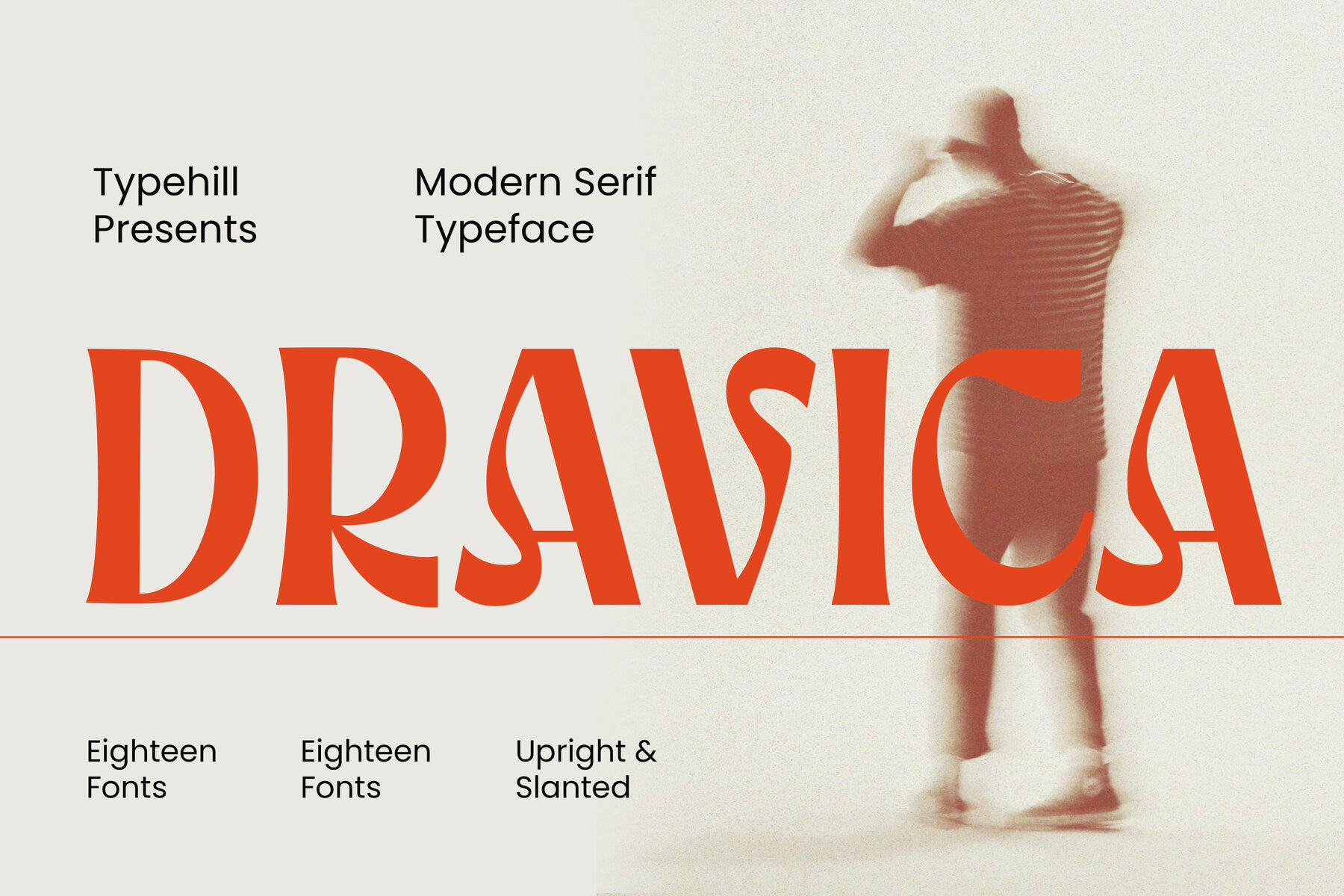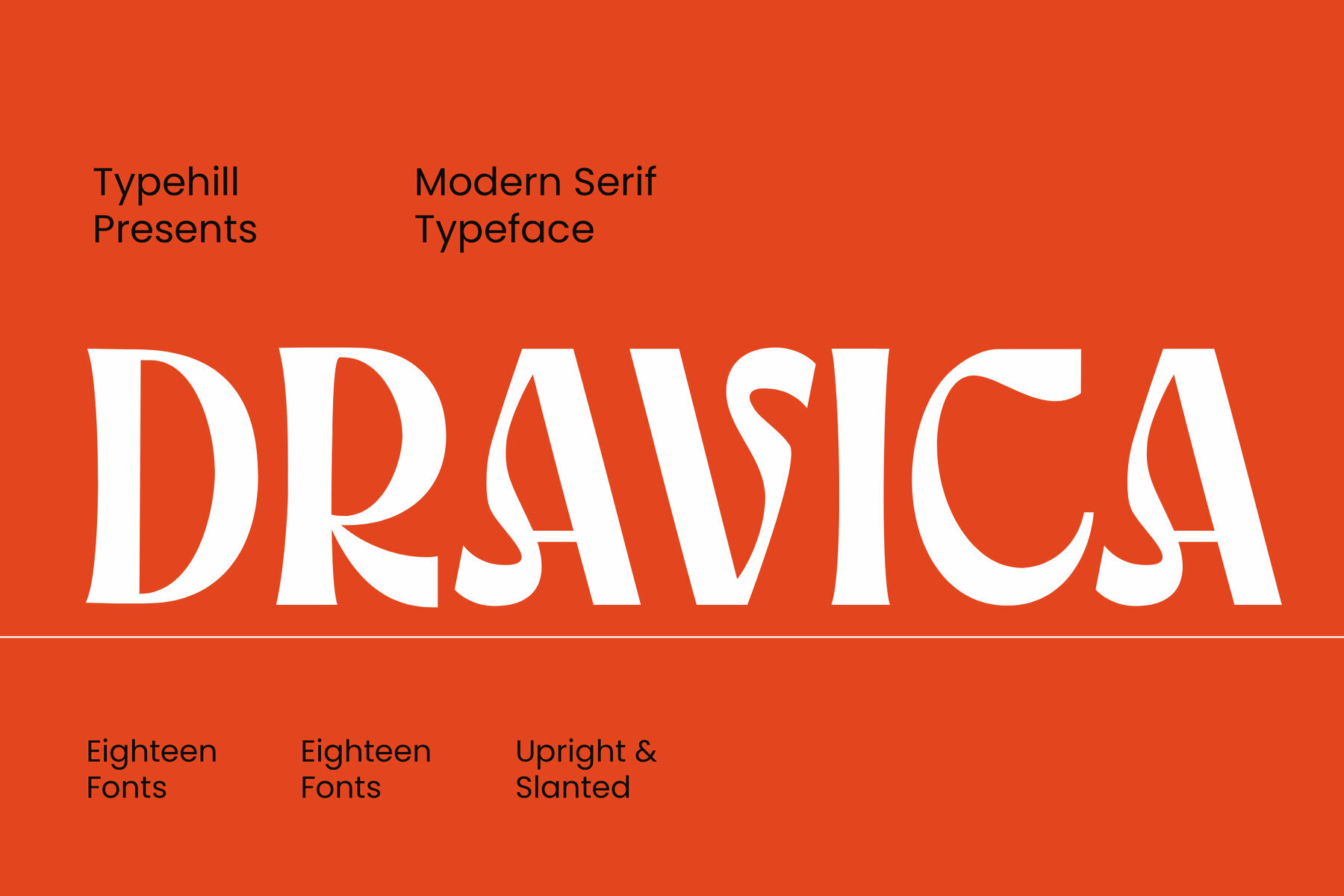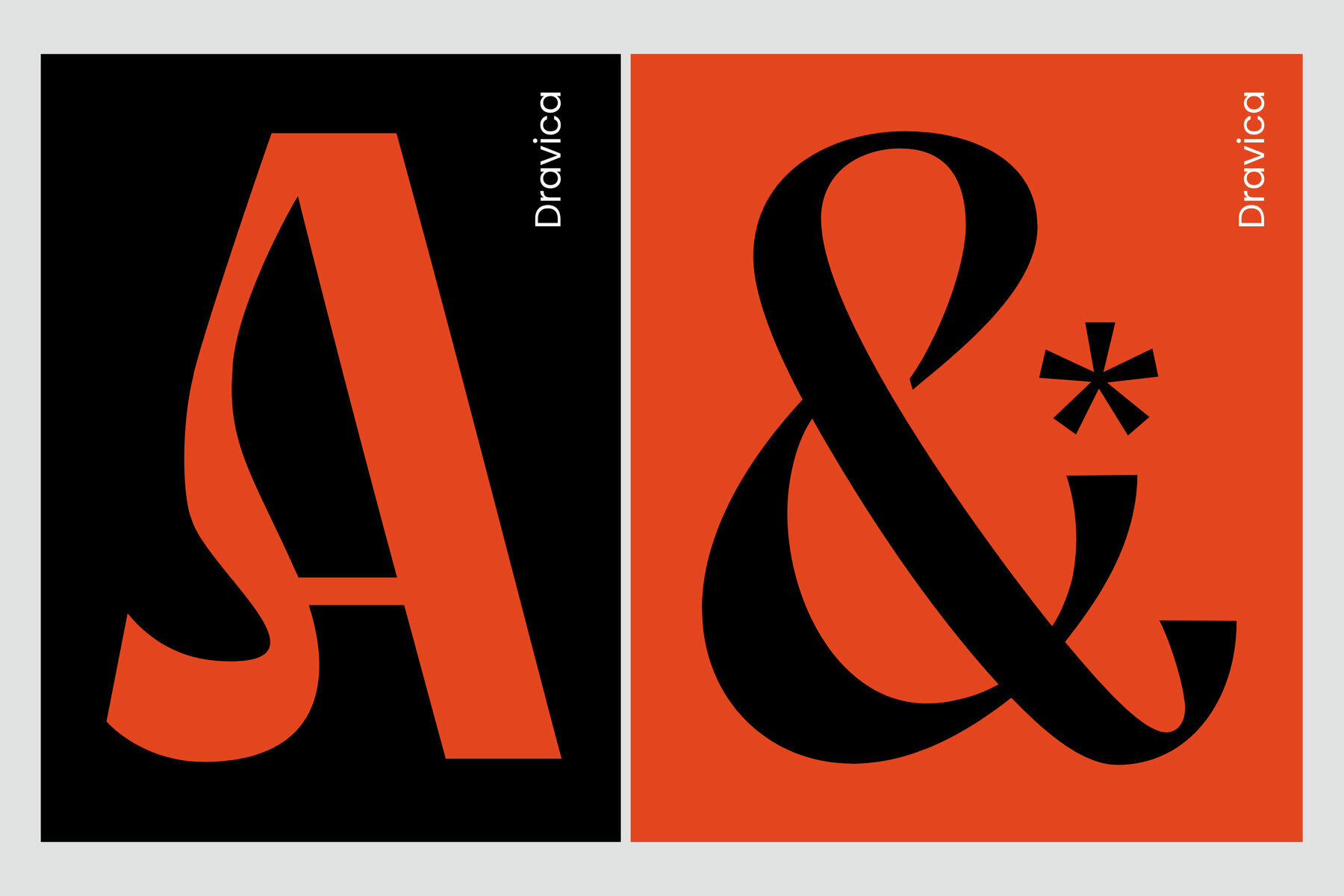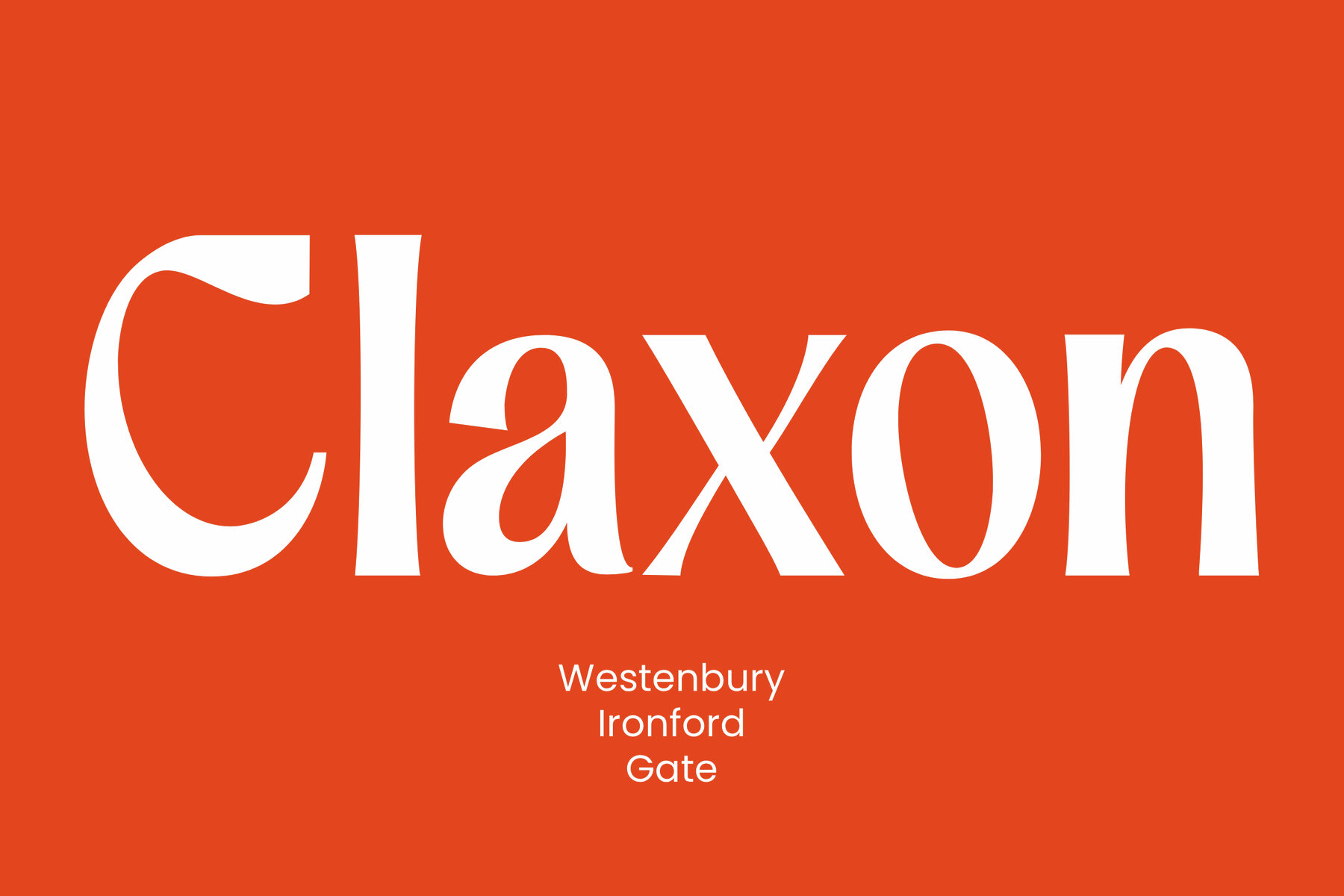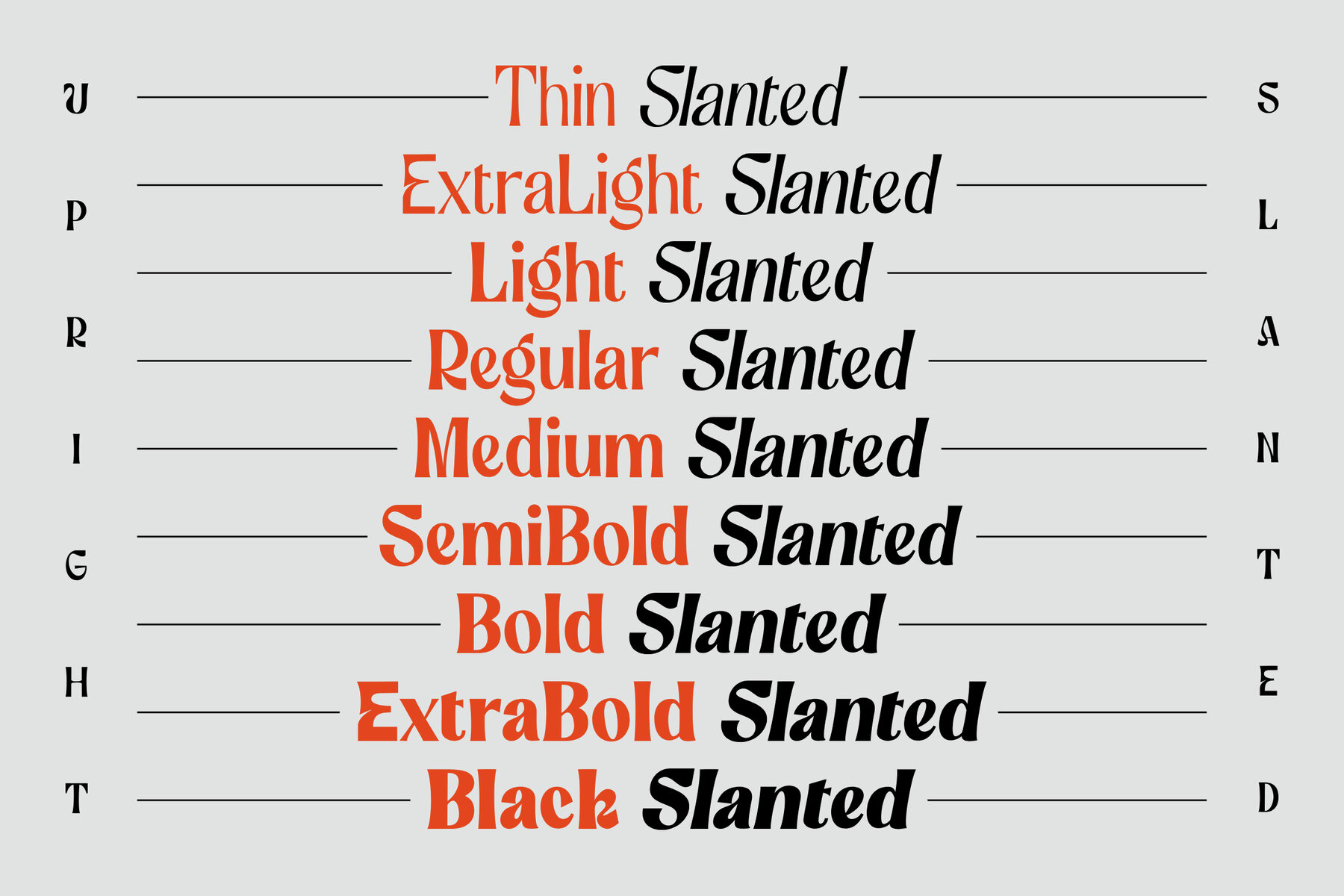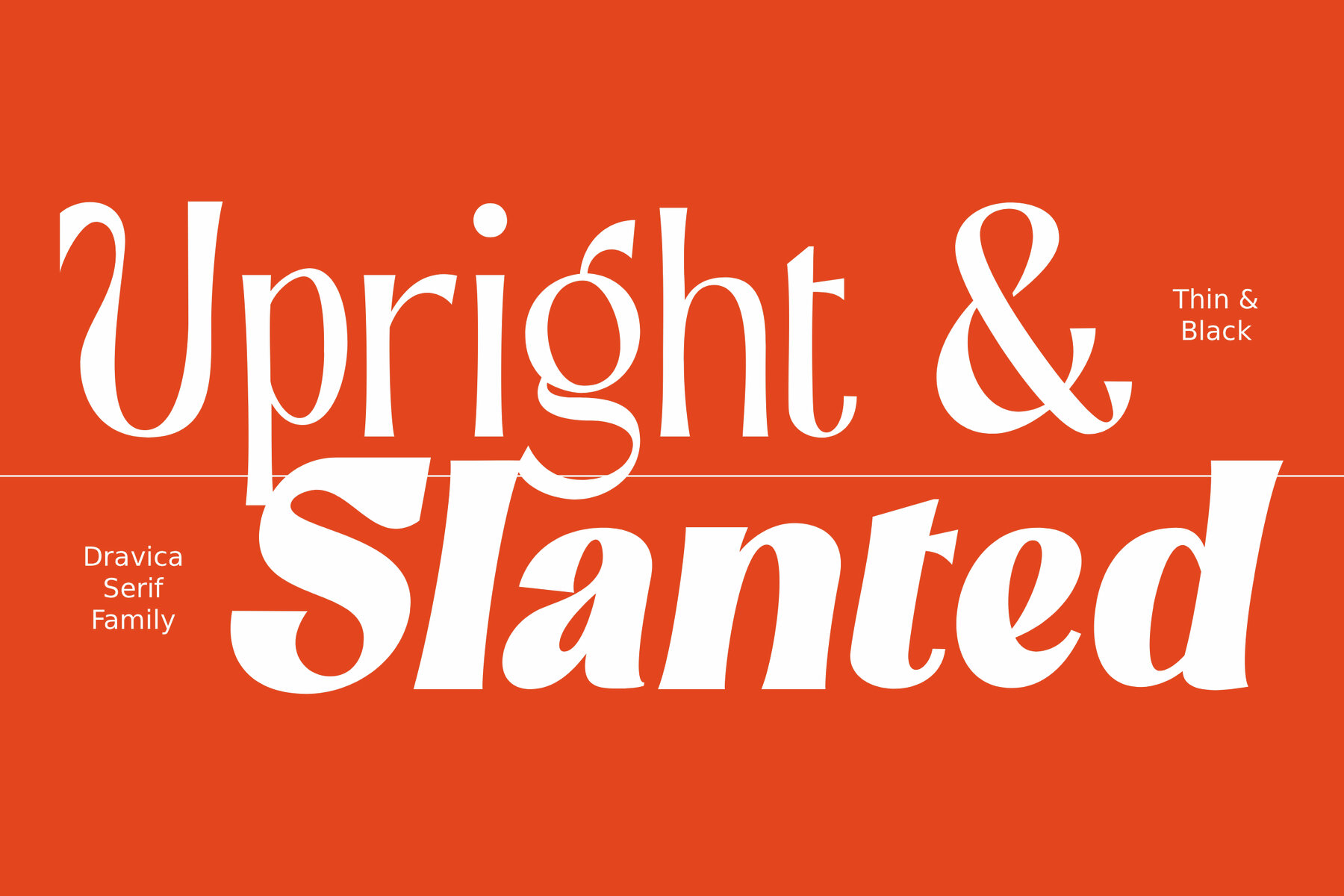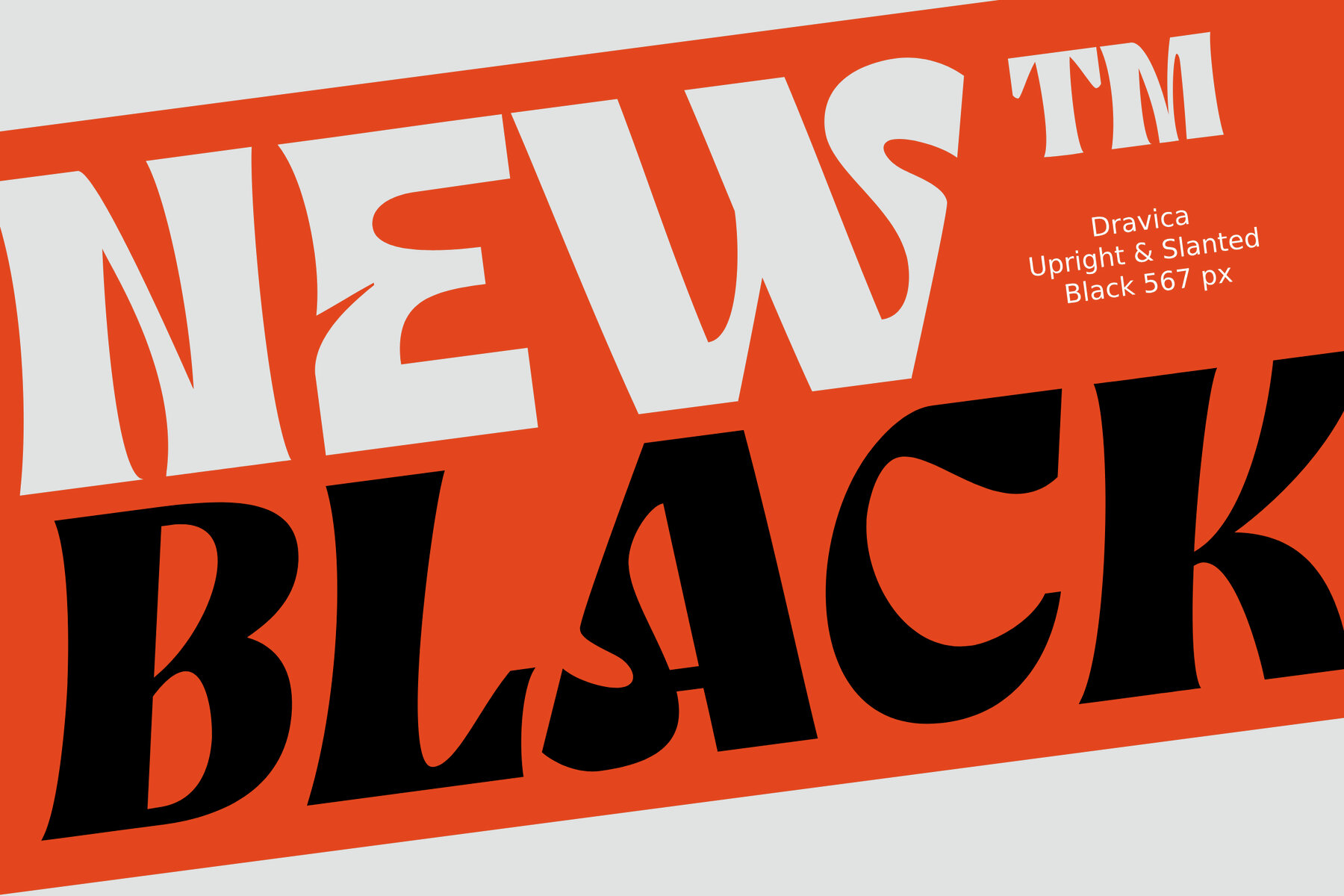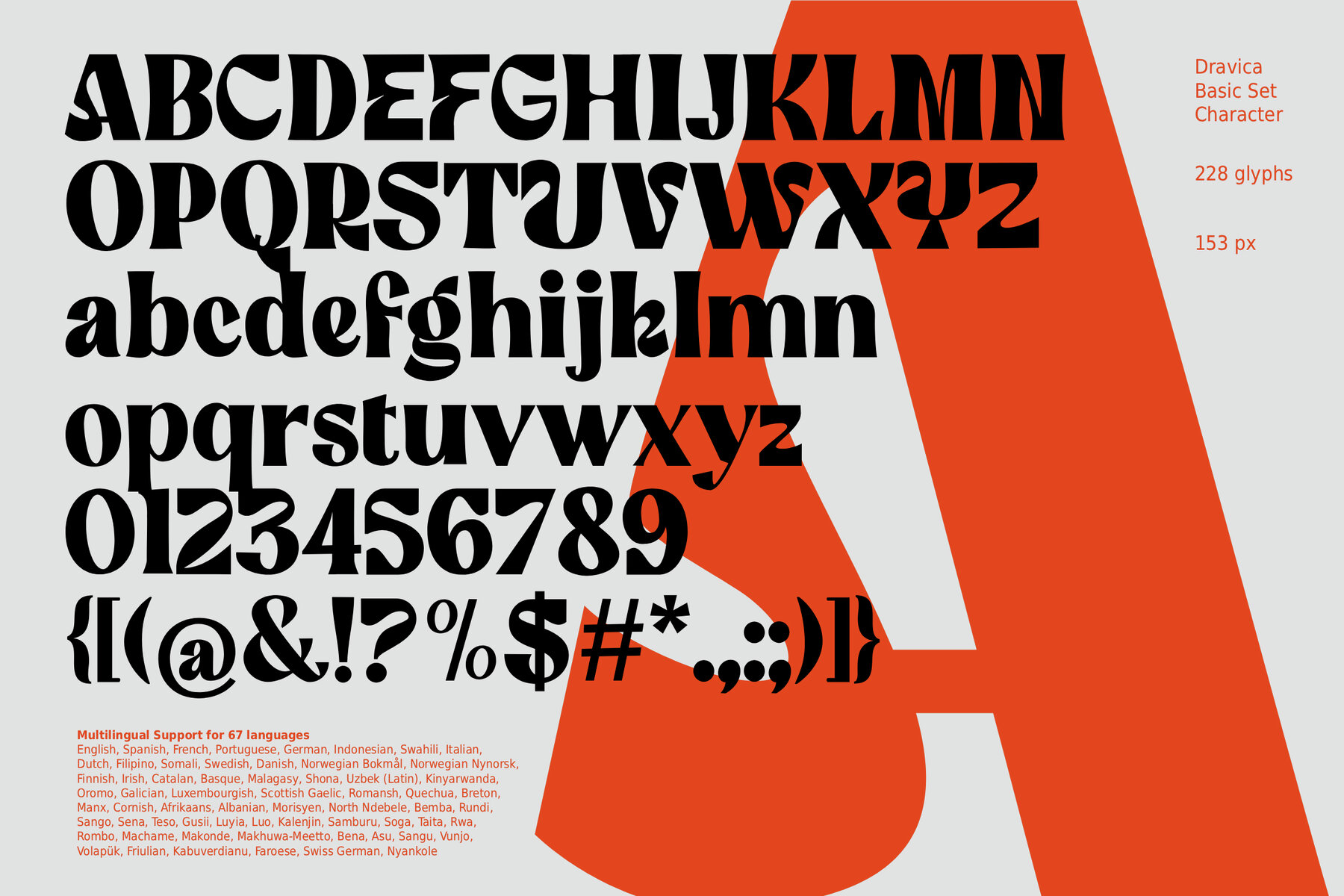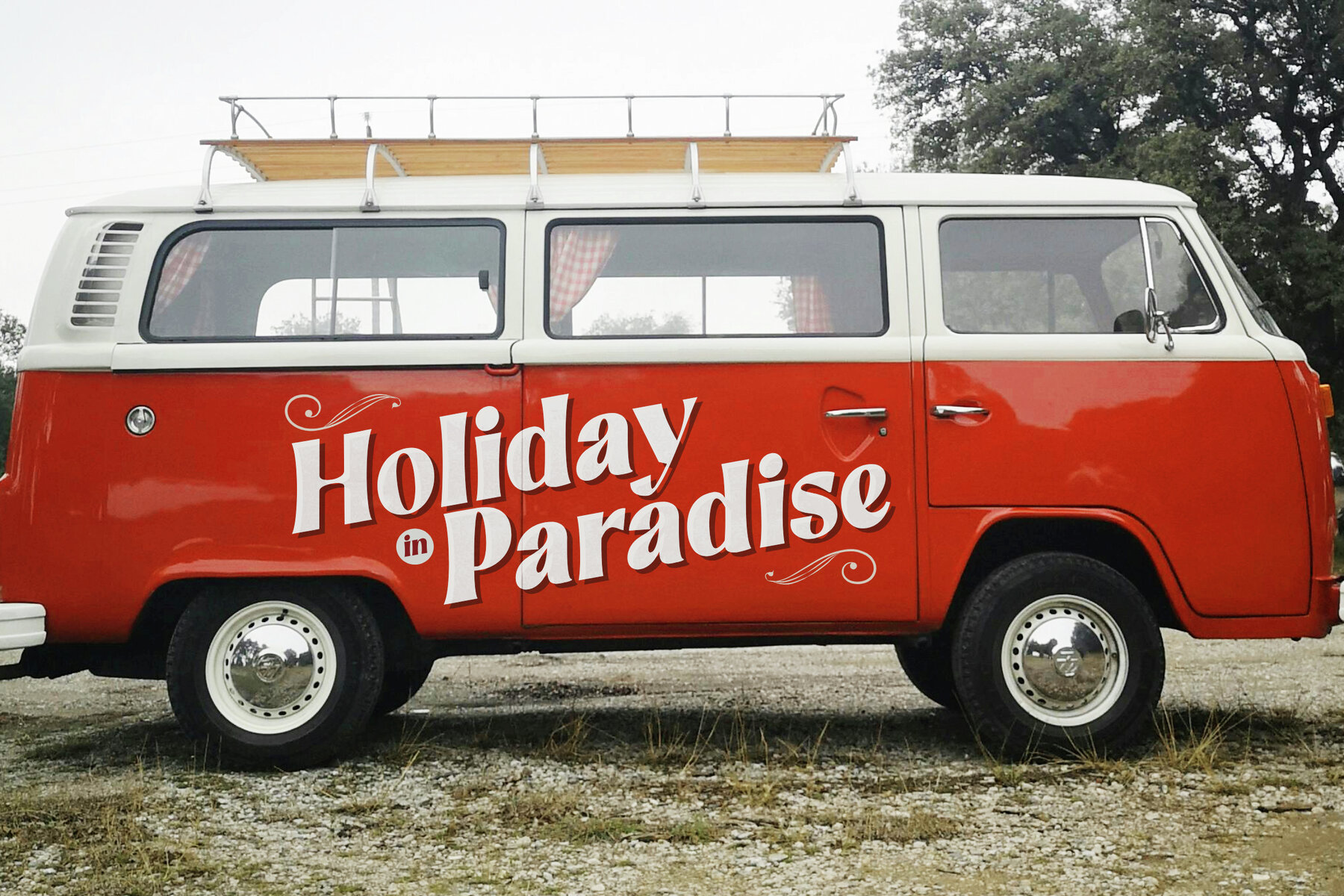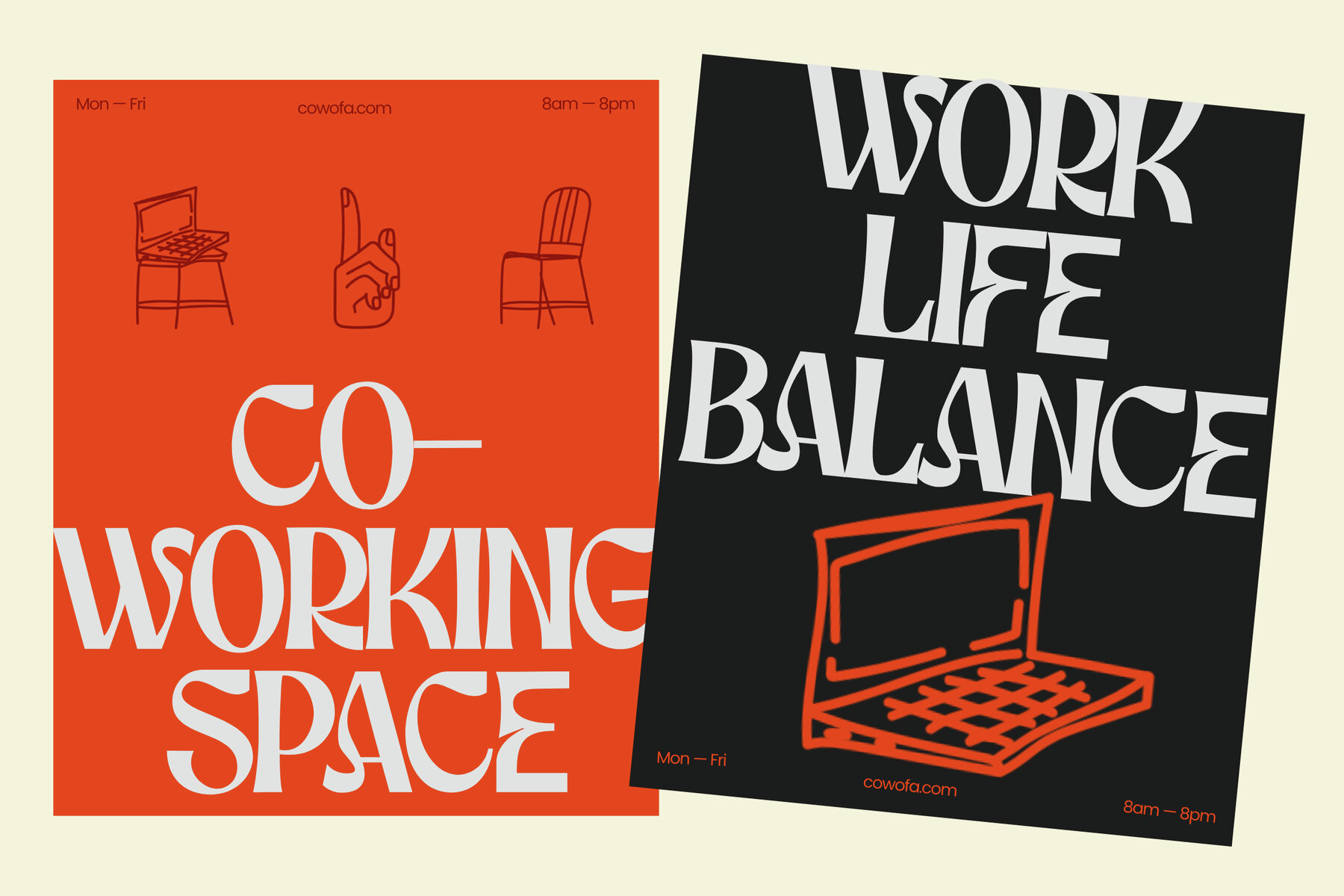
Dravica Font
Dravica Variable
Dravica stands at the intersection of classical elegance and contemporary flair. This modern serif typeface offers high contrast between its thick and thin strokes, complemented by sharp angled cuts and smooth curves. It presents a distinctive rhythm and a refined sense of movement, all while maintaining a balanced, bold structure with graceful flow. With eighteen versatile styles, both upright and slanted, Dravica meets varied design needs, from editorial titles and branding to expressive visual identities. The slanted styles introduce an extra dimension of dynamism, making it an excellent choice for projects that demand sophistication with a modern edge. Its strong personality and stylish tone make Dravica a statement serif for designers looking to unite tradition with innovation, combining precision with emotion.Dravica: A Modern Serif with Classical Elegance